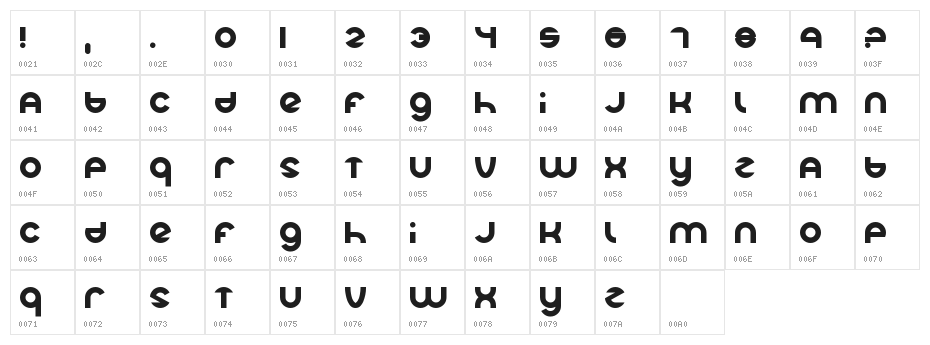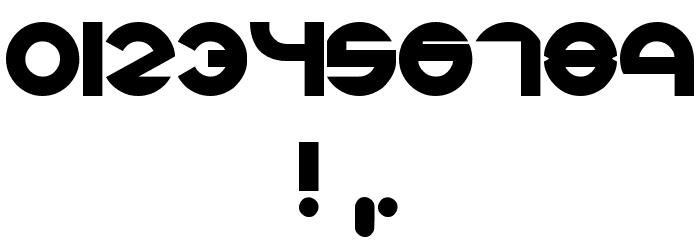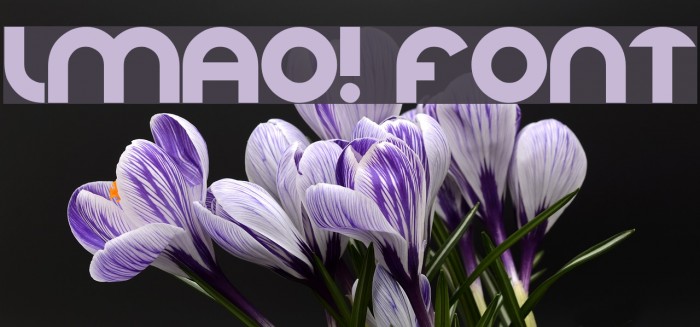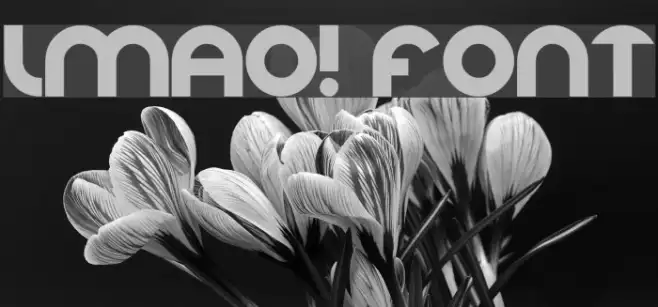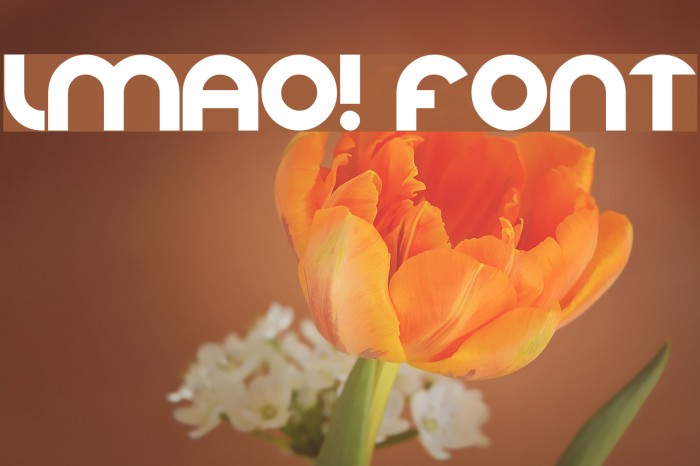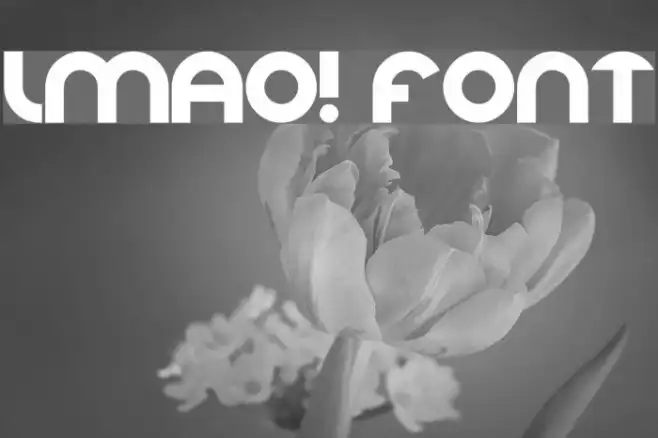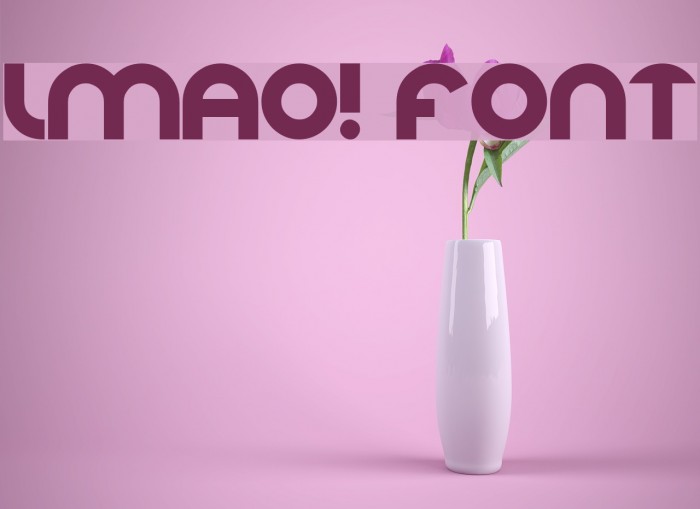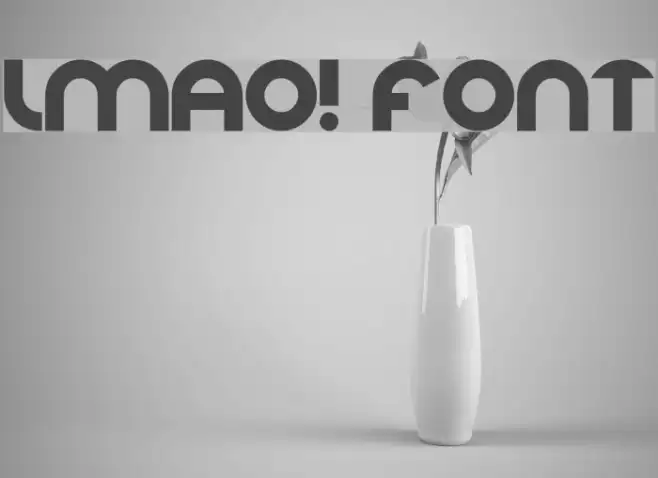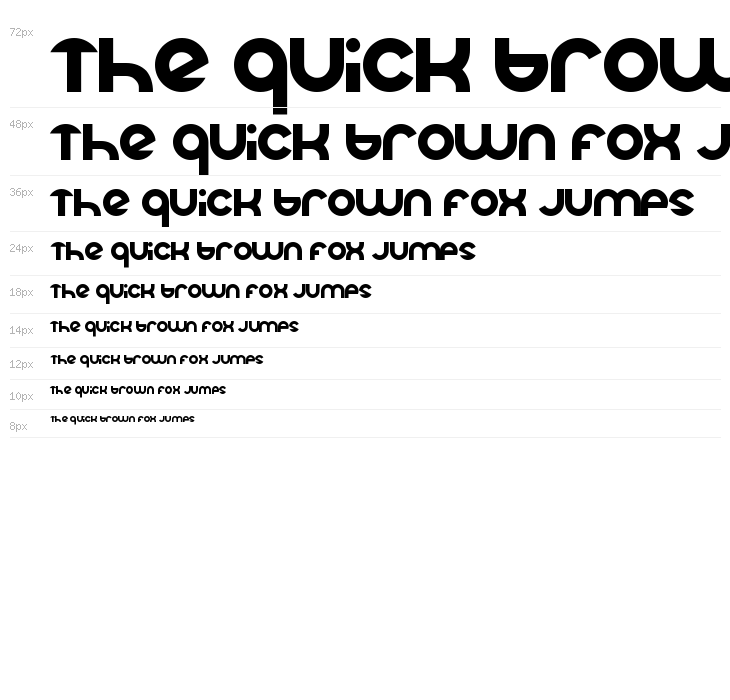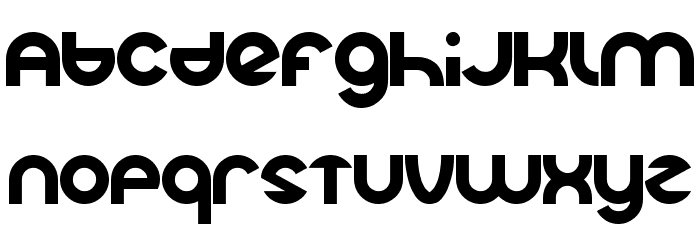
LMAO! Font
LMAO! Description
This font features a bold and geometric style, characterized by its rounded edges and uniform stroke width. The letters are crafted with a futuristic and modern aesthetic, incorporating circular and semi-circular shapes that create a sense of continuity and flow. The uppercase and lowercase letters maintain a consistent design language, with a playful yet structured appearance. The numerals and special characters follow the same design principles, ensuring a cohesive look across all glyphs. This font is ideal for projects that require a contemporary and eye-catching typeface.
| Proposed Projects | Ideal for branding, posters, digital media, and futuristic design projects. |